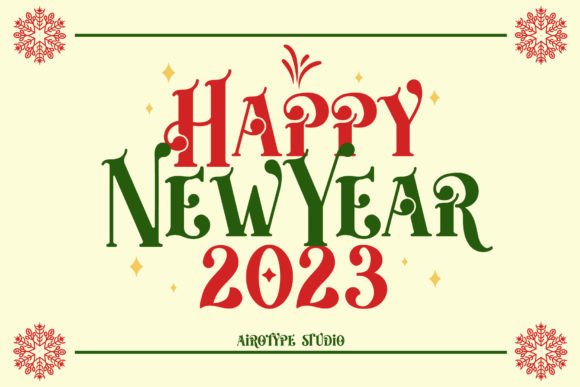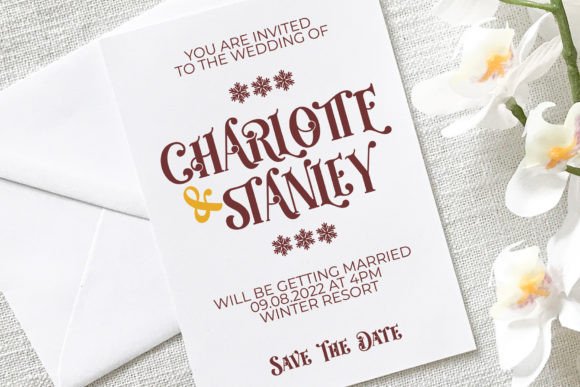
Christmas Moonday Font
Christmas Moonday is an elegant and festive display font. Its unique style is perfect for all your projects that require a sophisticated touch. This font is PUA encoded which means you can access all the glyphs and ligatures with ease!